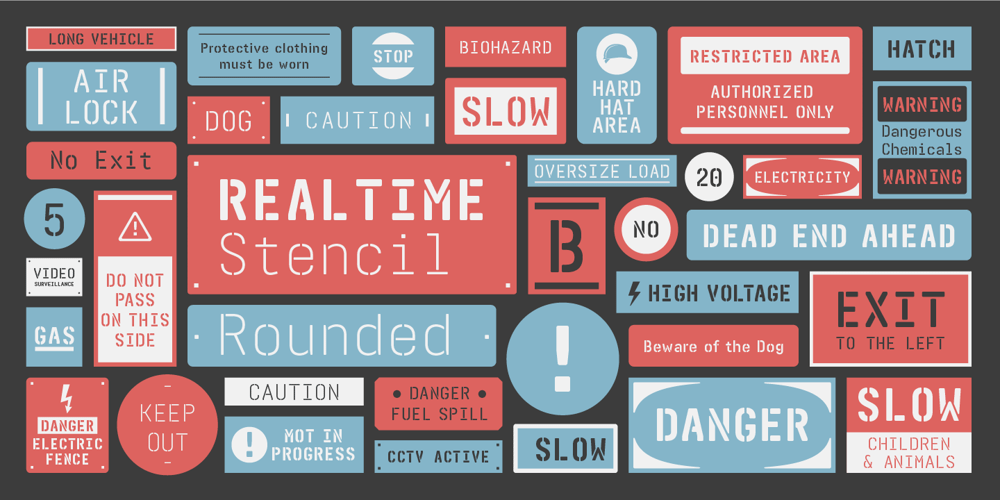
Realtime Stencil Rounded Font Family was designed by published by Juri Zaech. Realtime Stencil Rounded contains 5 styles and family package options. Realtime Stencil Rounded is part of the Realtime type family which draws inspiration from information displays. The result is a technical yet friendly design with details that serve function and visual impact alike. As a monospaced typeface it lends itself to tabular designs, sturdy columns and tidy layouts. Nevertheless Realtime Stencil Rounded comes with a feature for setting continuous text — a proportional design employable through OpenType — it further comes in five weights, from light to black, and with a character set that covers over 200 latin languages. Please see the Realtime Stencil Rounded Type Specimen PDF in the gallery. Realtime Stencil Rounded is the soft companion to the standard Realtime Stencil typeface which is available separately.